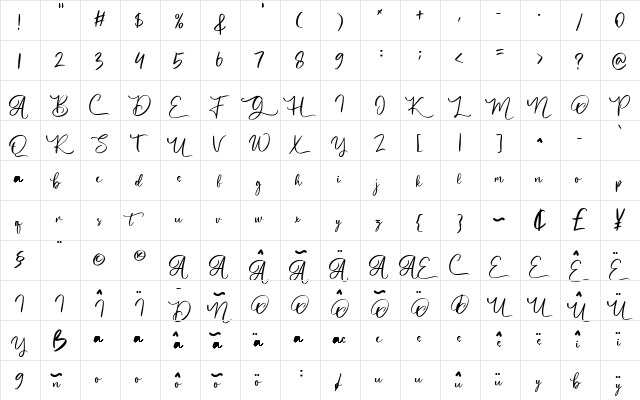
Butgone Regular Font Preview
Butgone Regular
Butgone Regular Font Details
| Foundry | Vultype Co |
| Designer | Vultype Co |
Design Context for Butgone Typeface
Butgone is a composed and adaptable typeface that performs quietly and consistently across a wide range of design contexts.